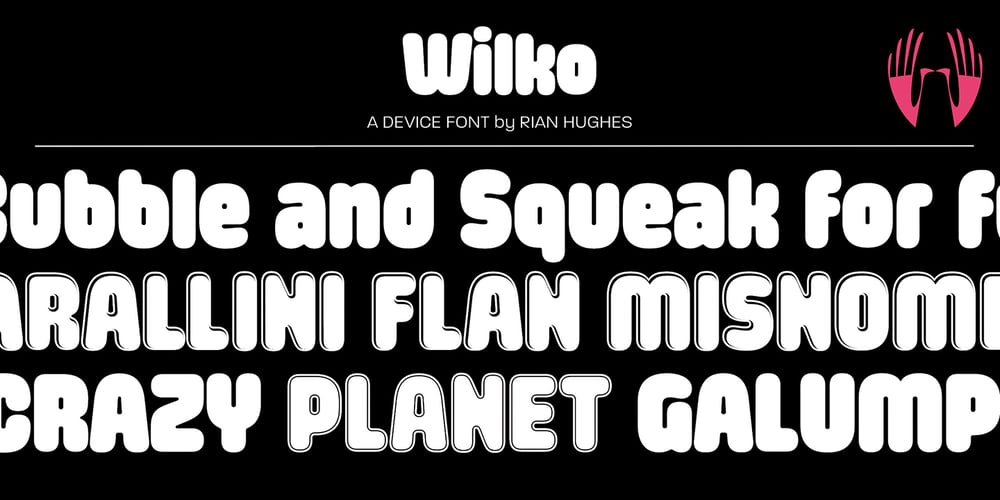
Wilko Font Family was designed by Rian Hughes and published by Device. Wilko contains 3 styles and family package options. Wilko is the carnival barker of typefaces. Bold, impactful yet friendly, with two decorative variants. No frills, no corners, no messing. When you want to say it loud and clear.